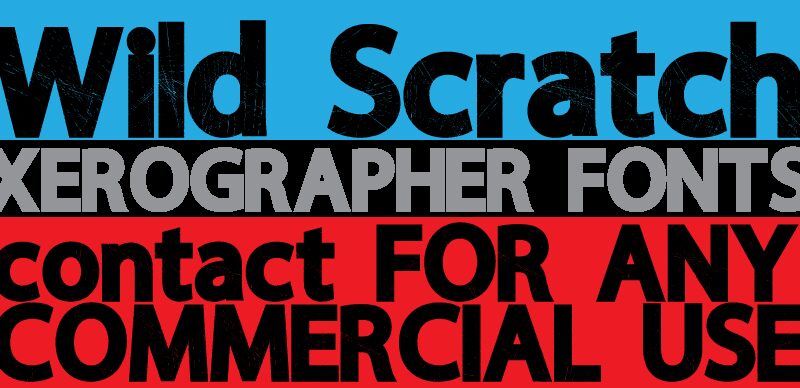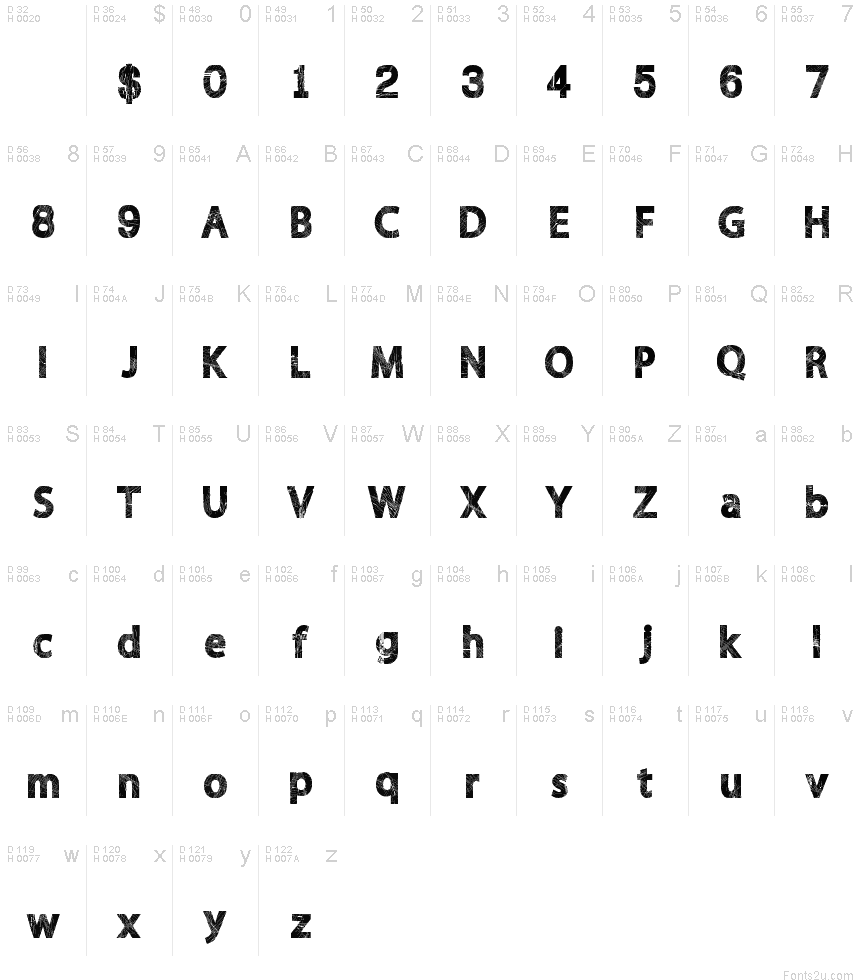
Wild Scratch from Xerographer Fonts, dated 2013, is a free eroded display font with broad, weighty letters, blunt curves, and a forceful industrial silhouette. Fine, overlapping scratches cover nearly every stroke.
That web of pale cuts can echo distressed photography and tangled line patterns in music posters, skate merchandise, event branding, and action-game graphics. In editorial design, it is especially suited to magazine feature openers and cover lines about underground culture, extreme sports, or noise-heavy music, where the lettering can become part of the page's illustration rather than simply naming the story.